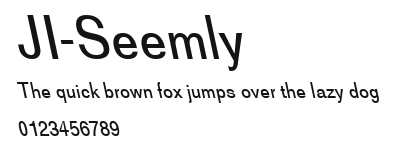
• Font Name: JI-Seemly
• Full Font Name: JI-Seemly
• Designer: JupiterImages
About JI-Seemly.ttf
JI-Seemly.ttf is a modern, elegant sans-serif font designed for ultimate readability and visual harmony. Perfect for branding, headlines, web design, and print materials.